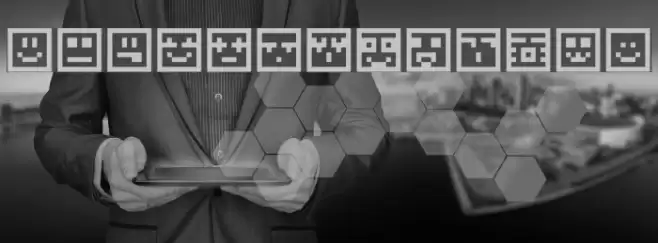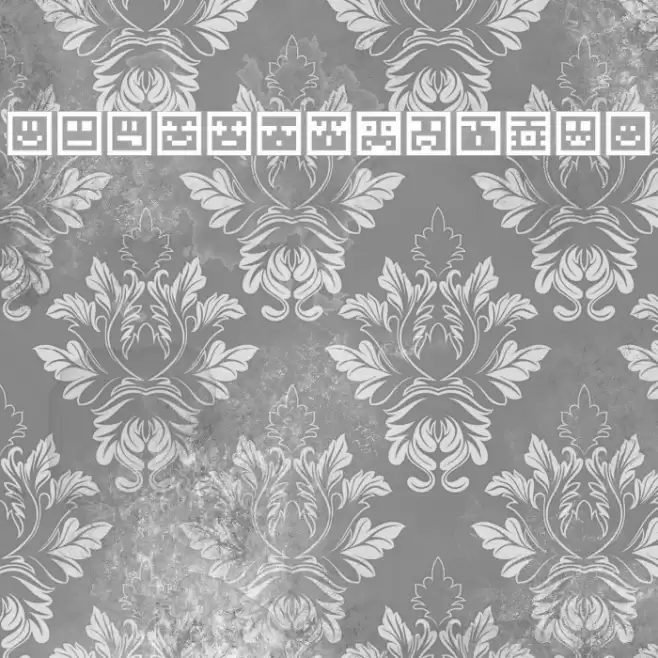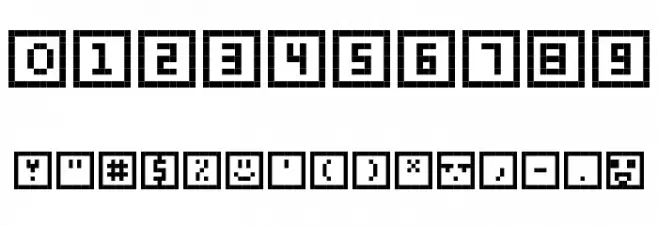
SQcon Font
SQcon Description
This font features a playful and retro pixelated design, reminiscent of early digital displays and video games. Each character is enclosed within a square, giving it a distinct blocky appearance. The uppercase letters are bold and clear, while the numbers and special characters maintain the same pixelated style, ensuring consistency across all glyphs. The font's unique charm lies in its nostalgic appeal, making it ideal for projects that aim to evoke a sense of fun and creativity. Its geometric structure and uniformity make it easily legible, even at smaller sizes.
A playful, pixelated font with a retro digital vibe from Uncategorized fonts.
- Proposed Projects: Ideal for video game design, retro-themed posters, digital art projects, and playful branding.
- Overall Style: Retro, Playful